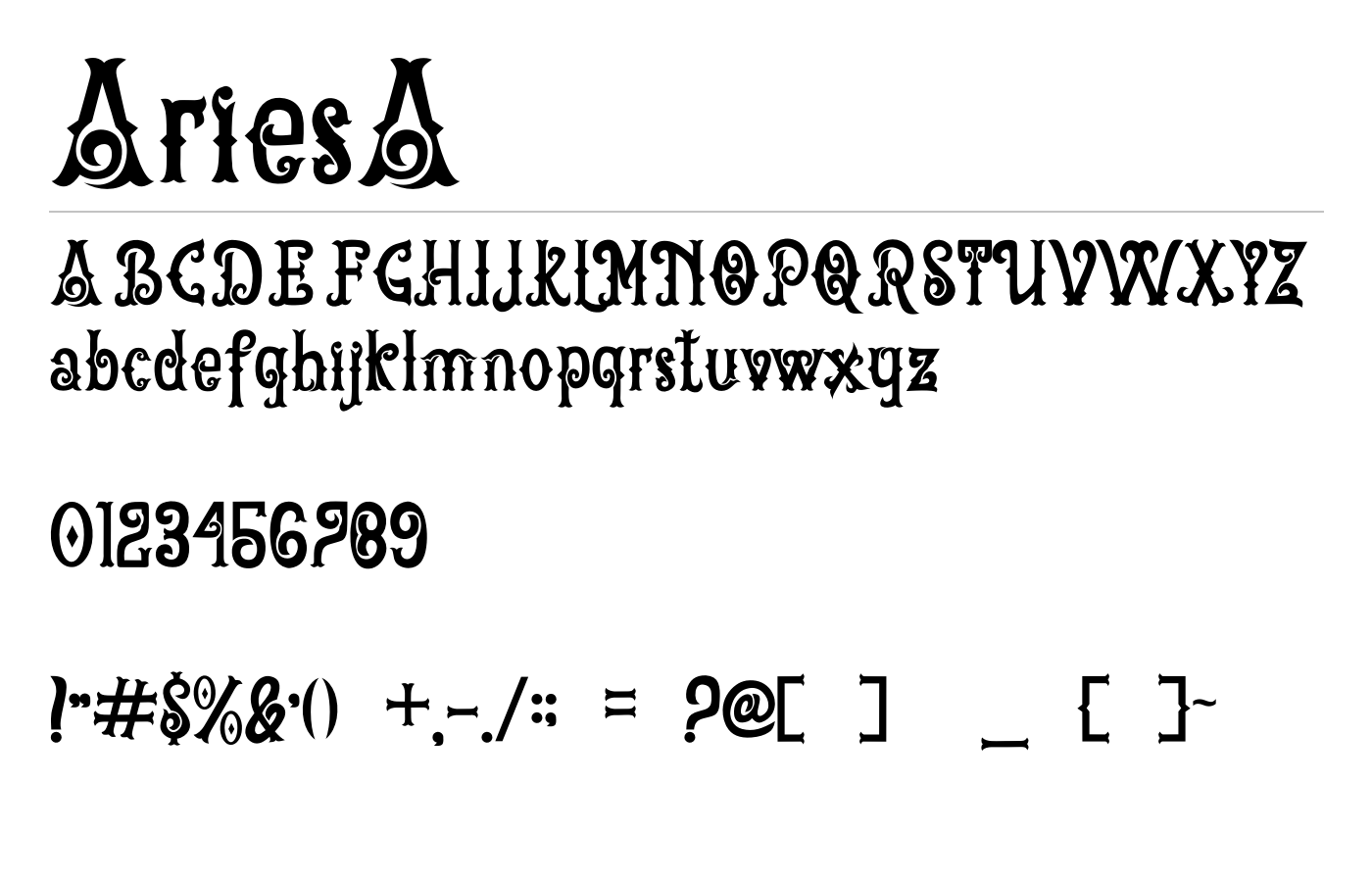
AriesA is a highly decorative serif font with a vintage and ornamental flair, featuring thick, contrasted strokes and intricate swirls within many characters. Its bold weight and unique letterforms evoke a mystical, old-world charm that works well for creative projects, headlines, or branding that seeks an artistic, fantasy, or gothic aesthetic. This font stands out best in display settings where its detailed, quirky style can shine.